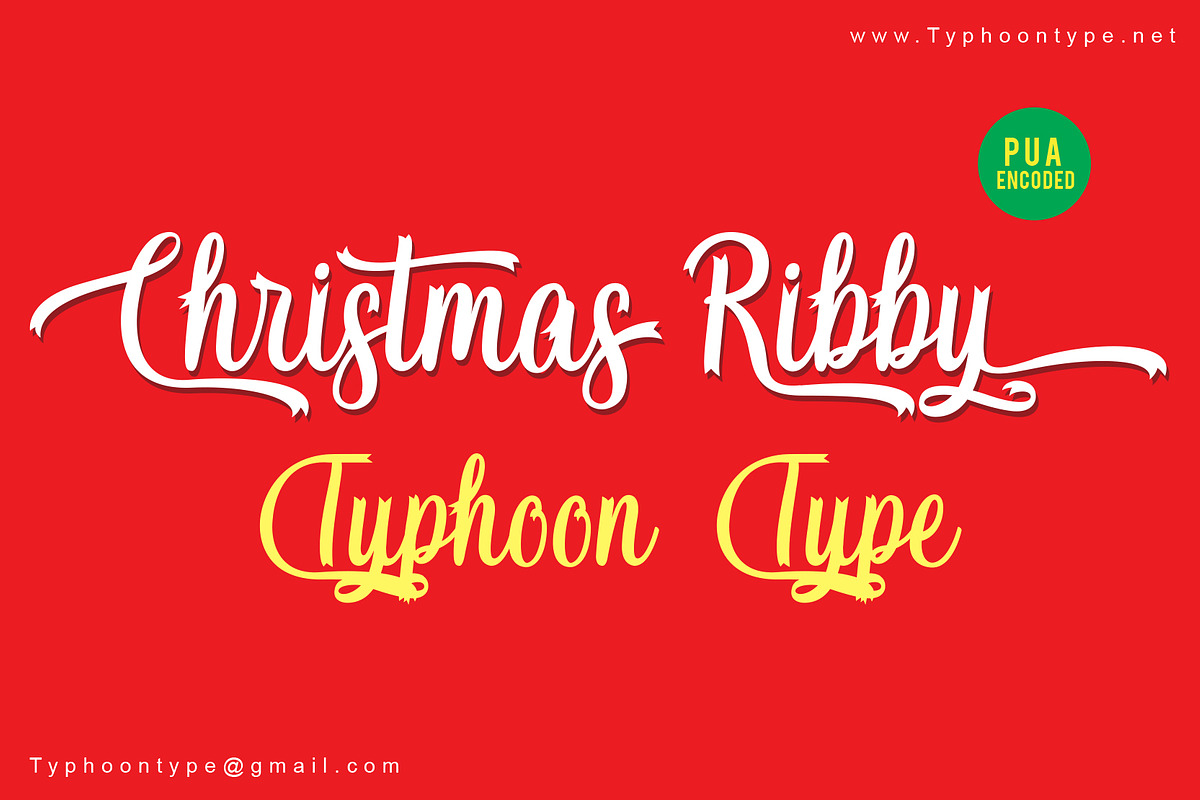
Christmas Ribby font
Christmas Ribby This Font perfect for logos, name tag, advertising, product packaging, clothing, social media & greeting cards.
Why Christmas Ribby font is worth a look
Christmas Ribby font by TyphoonStudio fits naturally into Branding, posters, packaging, typography.